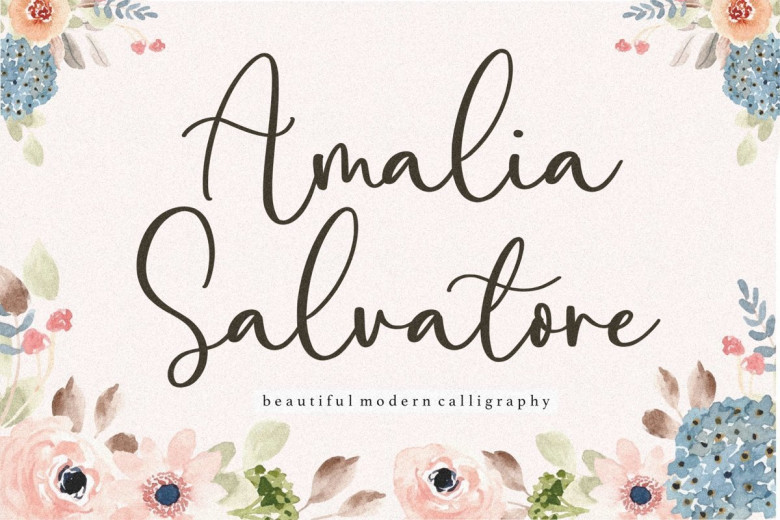
Amalia Salvatore Calligraphy Script Font
Glad to introduce you a new Amalia Salvatore Font. A very beautiful and unique calligraphy handwritten script font that comes with a very natural ligature surprise so it is suitable for your design needs such as printed quotes, invitation cards, social media, product packaging, Web you and more!